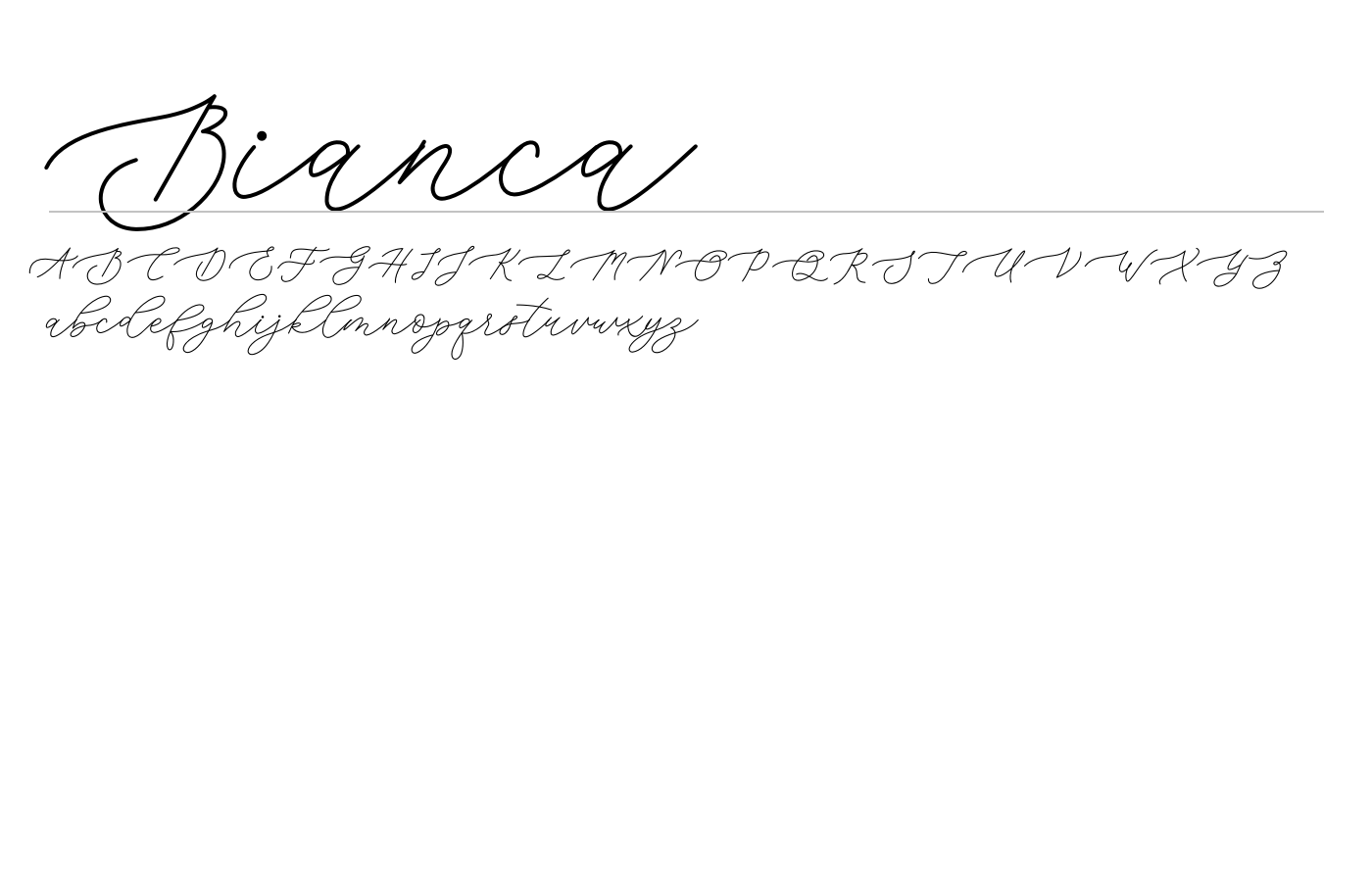
Bianca Font is a delicate, elegant script typeface that mimics graceful, flowing handwriting with fine strokes and a refined, airy feel. Its light weight and fluid letterforms make it perfect for luxury branding, invitations, and stylish headlines where a sophisticated and personal touch is desired. This font works best in contexts that call for femininity and charm, adding a timeless, artistic flair without overpowering the design.
Bianca Font